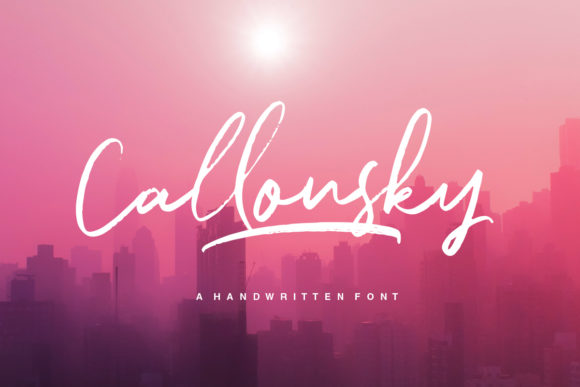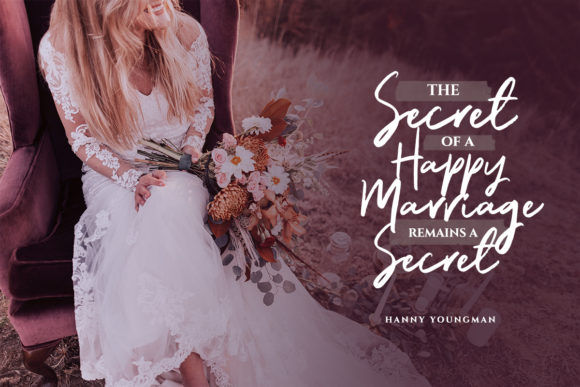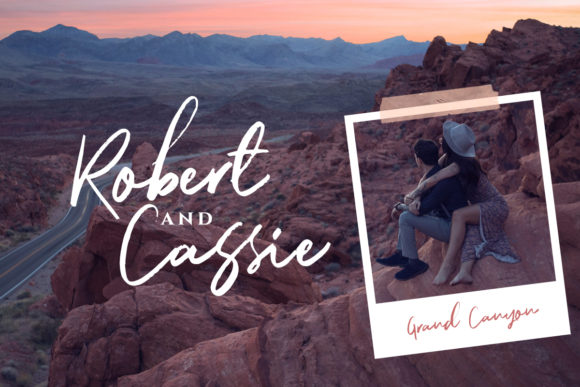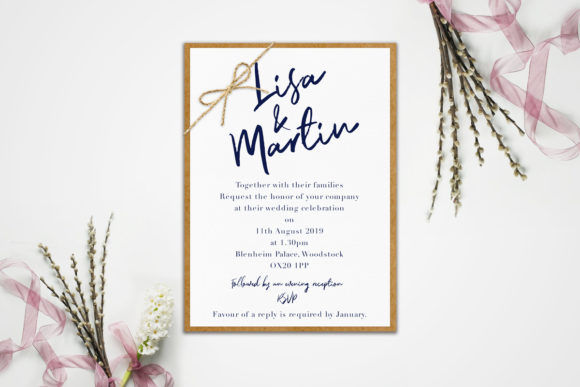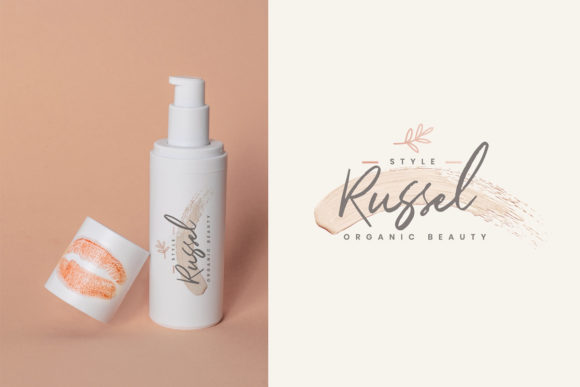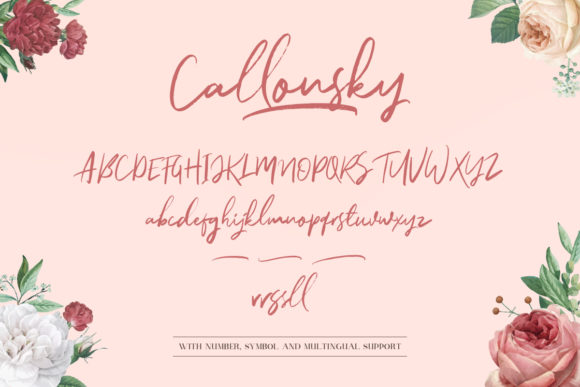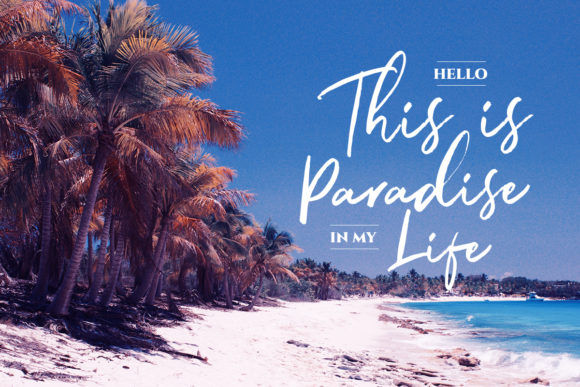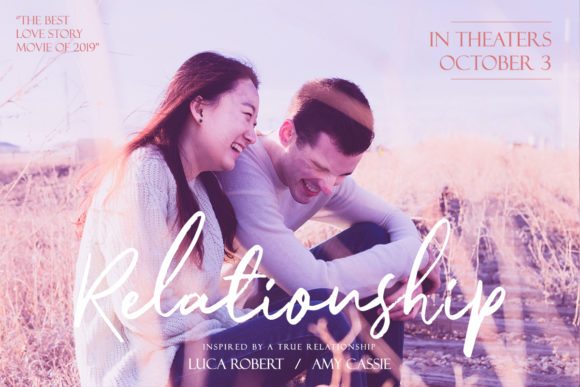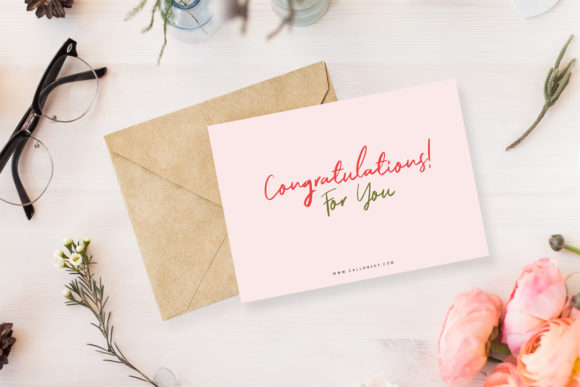
Callonsky Font
About Callonsky Font
Callonsky is a handwritten font with a varied baseline and casual style. It is perfect for adding a personal touch to any design project!